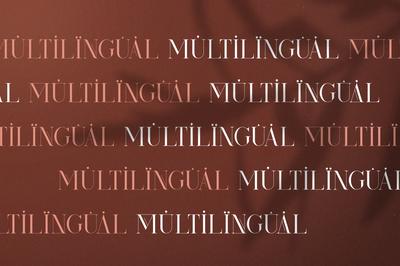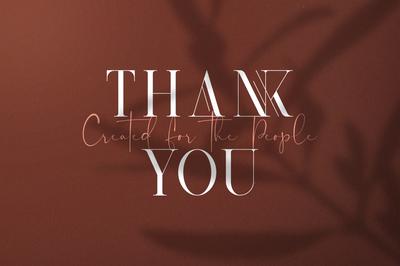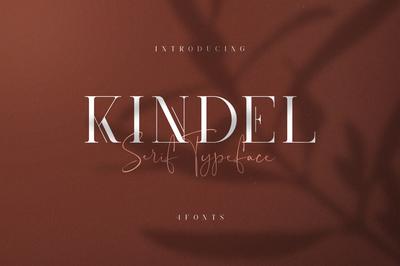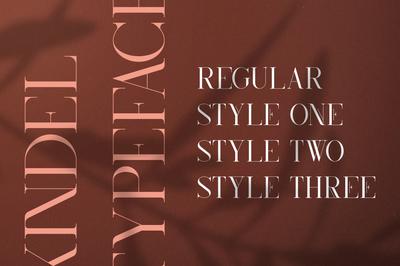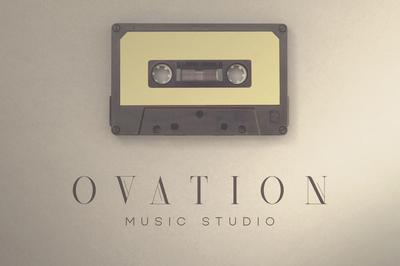
Kindel – Serif Typeface | 4 styles
INTRODUCING Kindel – Serif Typeface | 4 styles
Kindel Serif is modern, sophisticated typeface with total of 4 font styles, loaded with ligature glyphs and multilingual support. It’s a very versatile font that works great in large and small sizes.
Kindel Serif is perfect for branding projects, home-ware designs, product packaging, magazine headers – or simply as a stylish text overlay to any background image.
- Regular
- Style one
- Style two
- Style three
- Ligature glyphs
- Multilingual support